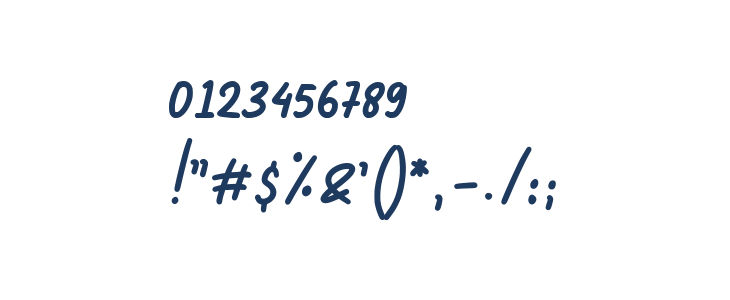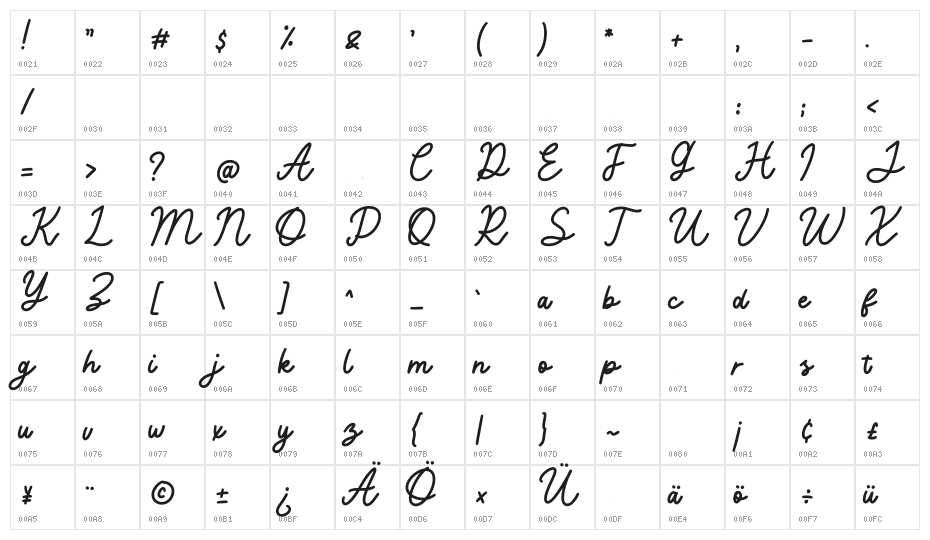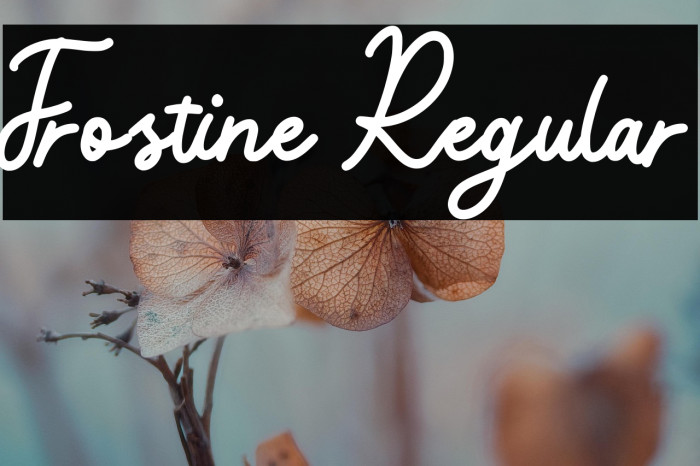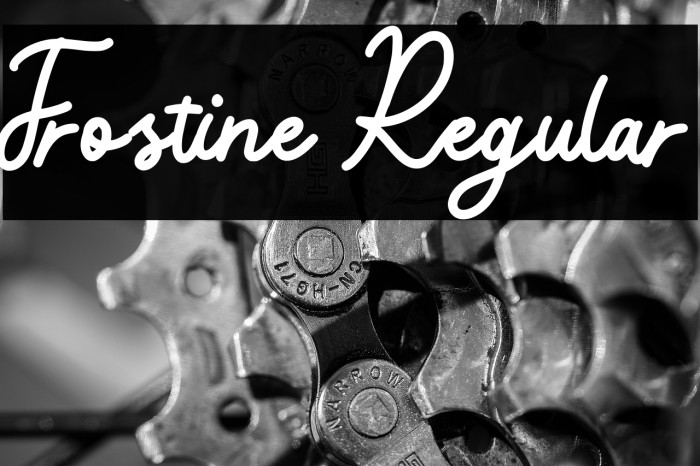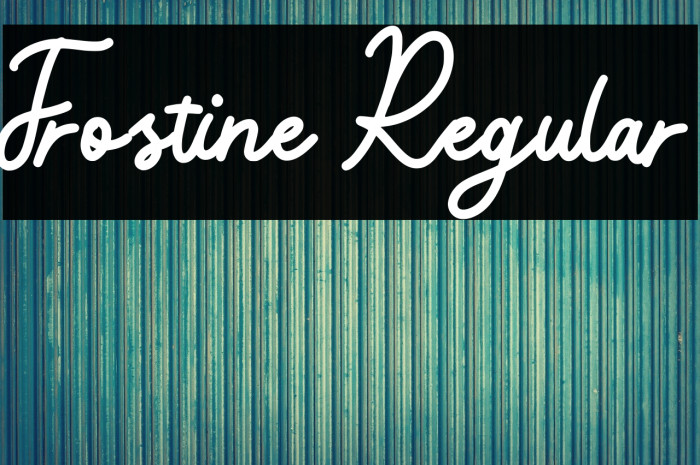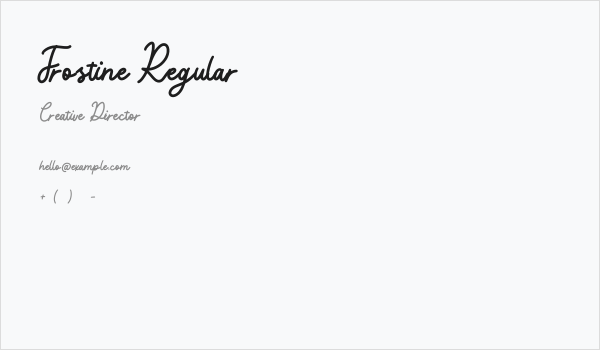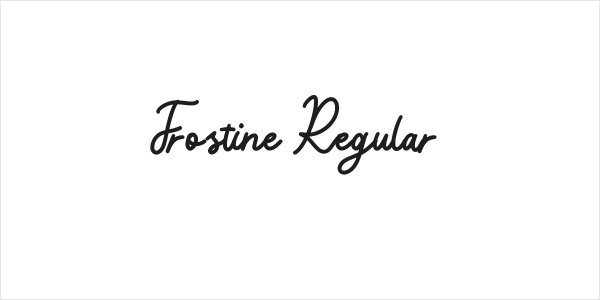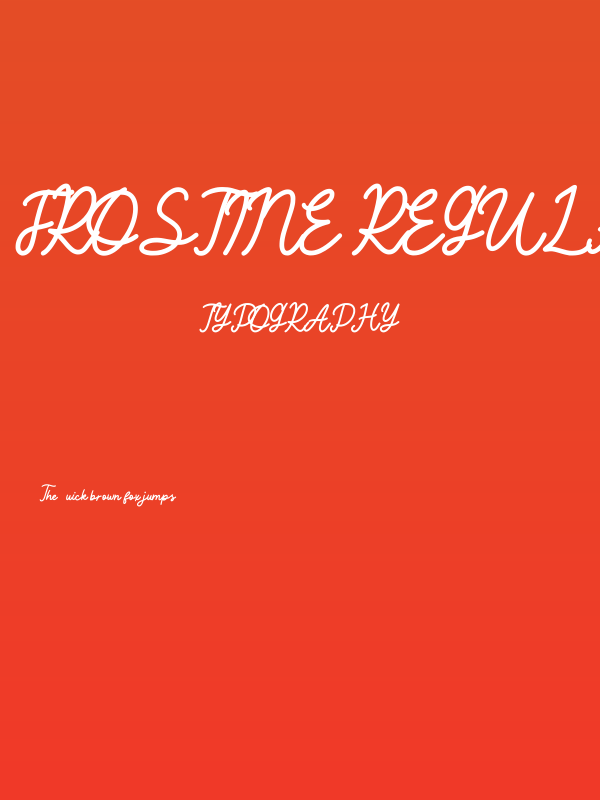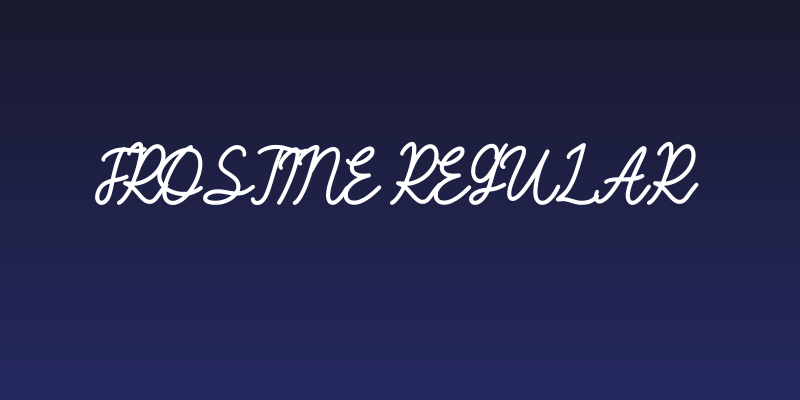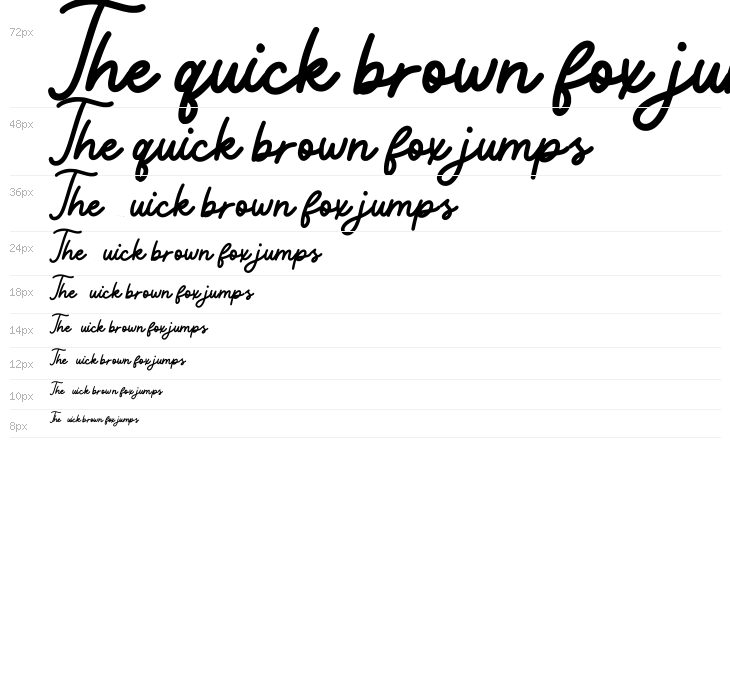
Frostine Regular Font
Frostine Regular Description
This font features a flowing, cursive style with elegant loops and smooth connections between letters. The uppercase letters are slightly more formal, with a consistent slant and rounded forms that convey a sense of sophistication. The lowercase letters maintain a playful yet refined appearance, with some characters extending below the baseline, adding to the font's dynamic nature. The numerals are clear and legible, matching the overall script style. Special characters are well-integrated, maintaining the same fluidity and elegance. This font is ideal for projects that require a touch of elegance and personal flair.
| Overall Style | Elegant, Playful |
| Use Case | Headlines, Invitations, Branding |
| Proposed Projects | Wedding invitations, greeting cards, personal branding, and elegant packaging. |